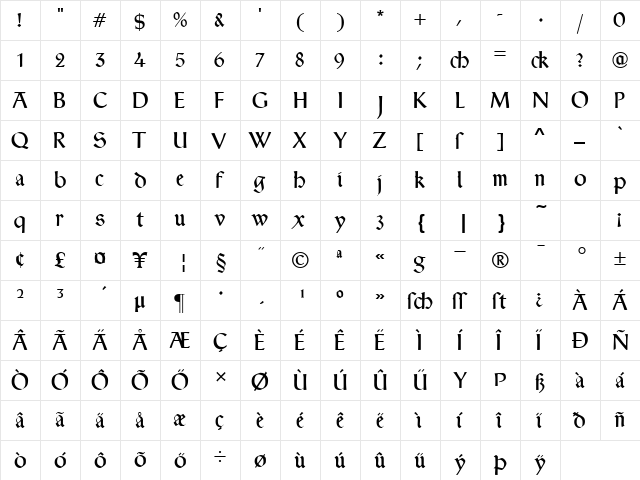
Typographer Rotunda Regular
| Designer | Dieter Steffmann |
Design Context for Typographer Rotunda Typeface
Typographer Rotunda takes a measured approach to typography — its balanced proportions and neutral character make it a reliable workhorse for both digital and print work.